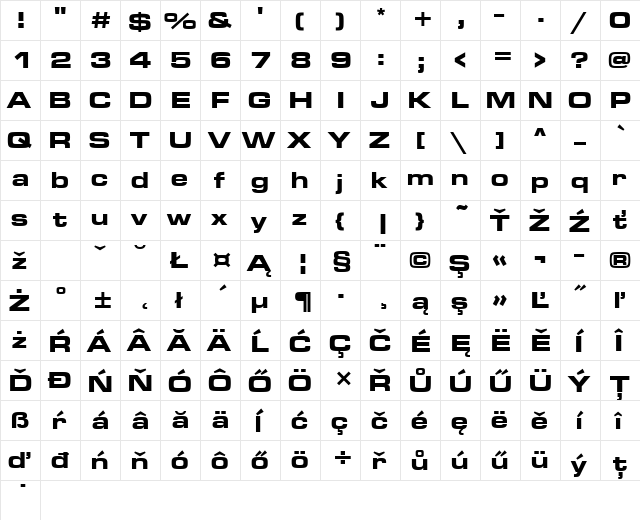
MicrogrammaDEEBolExt Regular Font Preview
MicrogrammaDEEBolExt Regular
Design Context for MicrogrammaDEEBolExt Typeface
MicrogrammaDEEBolExt is a composed and adaptable typeface that performs quietly and consistently across a wide range of design contexts.